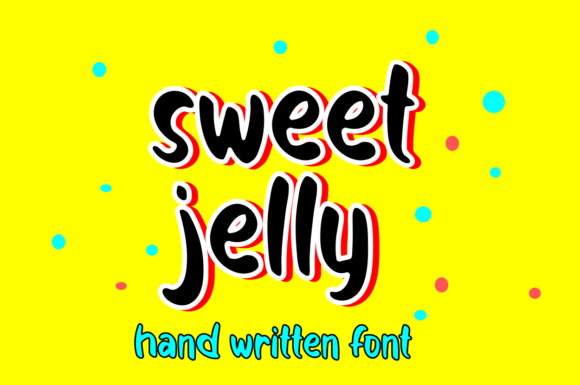
Journey into a world of captivating creativity with Sweet Jelly Font, a script font that unleashes the magic of handwritten charm. Its enchanting curves and spontaneous flow bring life to your digital designs, adding a personal touch that resonates with audiences.
With Sweet Jelly Font, your YouTube gaming channel will transform into an immersive experience. Its playful and engaging style captures the essence of gaming, drawing viewers into your world of virtual adventures. Let your passion shine through each stream, video, and thumbnail, leaving a lasting impression on your gaming community.
Embrace the versatility of Sweet Jelly Font, a font that adapts seamlessly to a myriad of creative endeavors. Whether you're crafting personalized greeting cards, designing eye-catching presentations, or embarking on digital art projects, Sweet Jelly Font elevates your creations with its unique and captivating charm.
Indulge in the beauty of Sweet Jelly Font, a font that captivates and inspires. Its carefully crafted characters, each a work of art, bring a touch of elegance and playfulness to your designs. Let your imagination soar as you explore the endless possibilities of this font, creating visual masterpieces that leave a lasting impact.